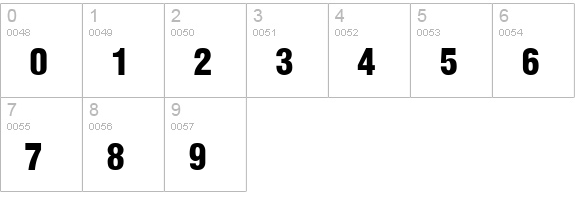
Partridge-Condensed-Black-Se is a maximum-weight, dramatic, condensed-width variant in the Partridge typeface family \xE2\x80\x94 well suited to maximum-impact headlines, posters, and packaging.
The Partridge-Condensed-Black-Se font is a striking display typeface that exudes elegance and strength. Its condensed letterforms and bold weight make it perfect for headlines, titles, and branding projects that require a powerful and impactful presence. This font features meticulously crafted characters with sharp, clean lines that give it a modern and sophisticated look. The condensed design allows for efficient use of space, making it ideal for projects with limited layout area. The Partridge-Condensed-Black-Se font is not only visually stunning but also versatile. It can be used across various design styles, from minimalist to bold and dramatic. Its bold weight ensures high legibility, even at small sizes, making it a practical choice for both print and digital applications. What sets this font apart is its availability. Unlike many premium fonts, the Partridge-Condensed-Black-Se font is freely available to download at FontsMarket.com. This means that designers, creatives, and enthusiasts can access and use this exceptional typeface without any cost. Whether you're working on personal or commercial projects, this font gives you the freedom to create and express yourself without any limitations. In conclusion, the Partridge-Condensed-Black-Se font is a stunning and versatile display typeface that combines elegance and strength. With its striking condensed design and bold weight, it is perfect for creating impactful headlines, titles, and branding materials. And the best part? It is freely available to download at FontsMarket.com, giving you the freedom to incorporate this exceptional font into your designs without any cost.